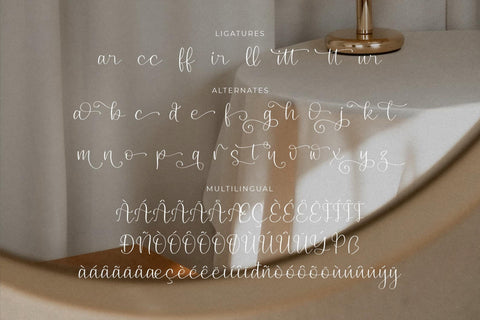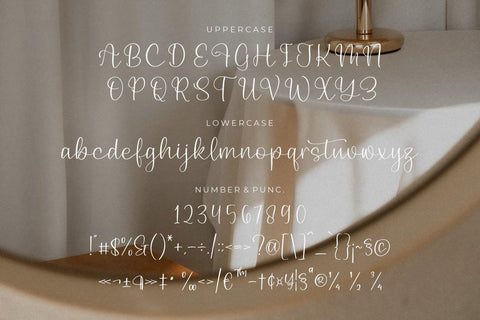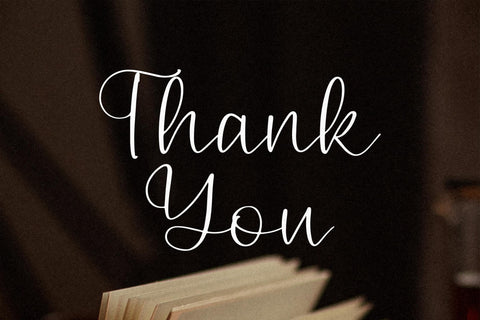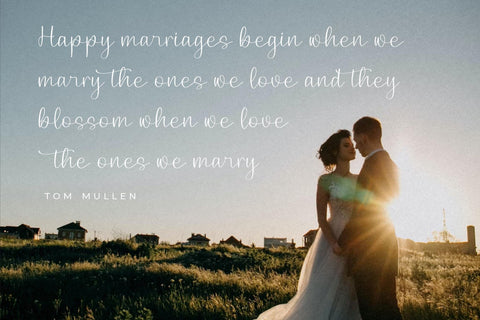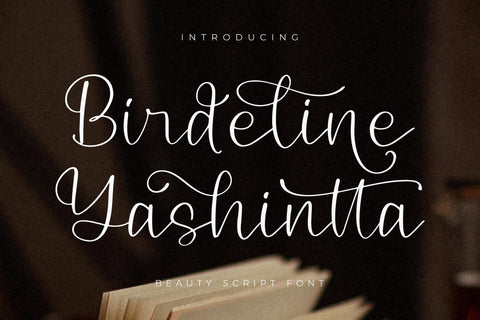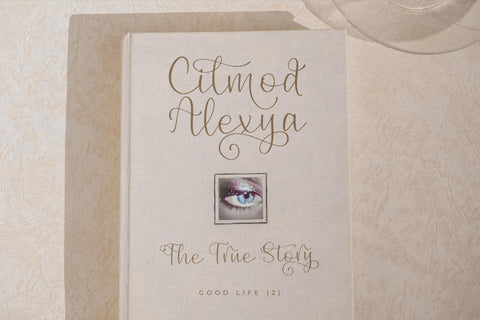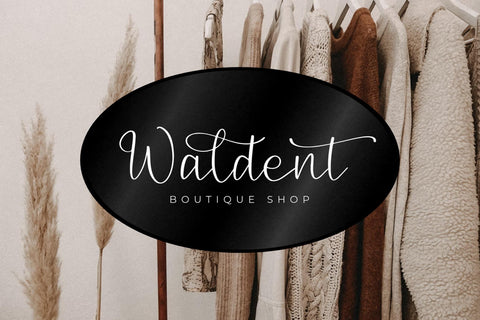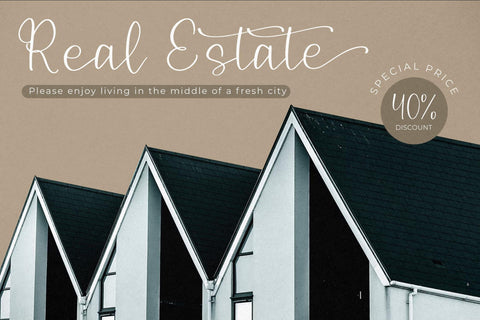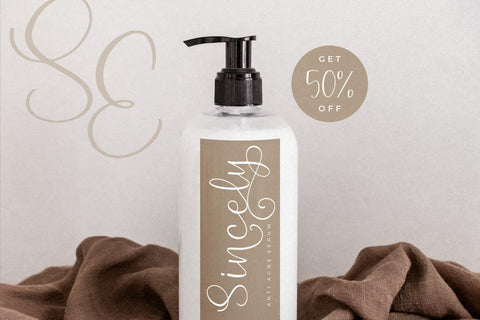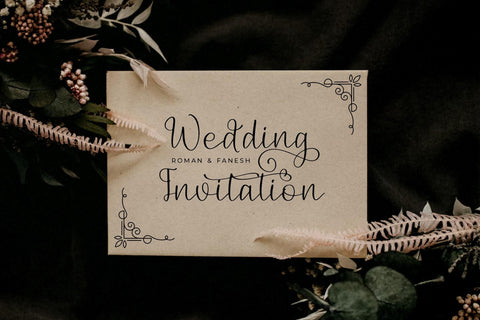
Birdeline Yashintta - Beauty Script Font
Proudly present Birdeline Yashintta - Beauty Script Font , created by Storytype,
A luxury script that has own unique style & modern look.